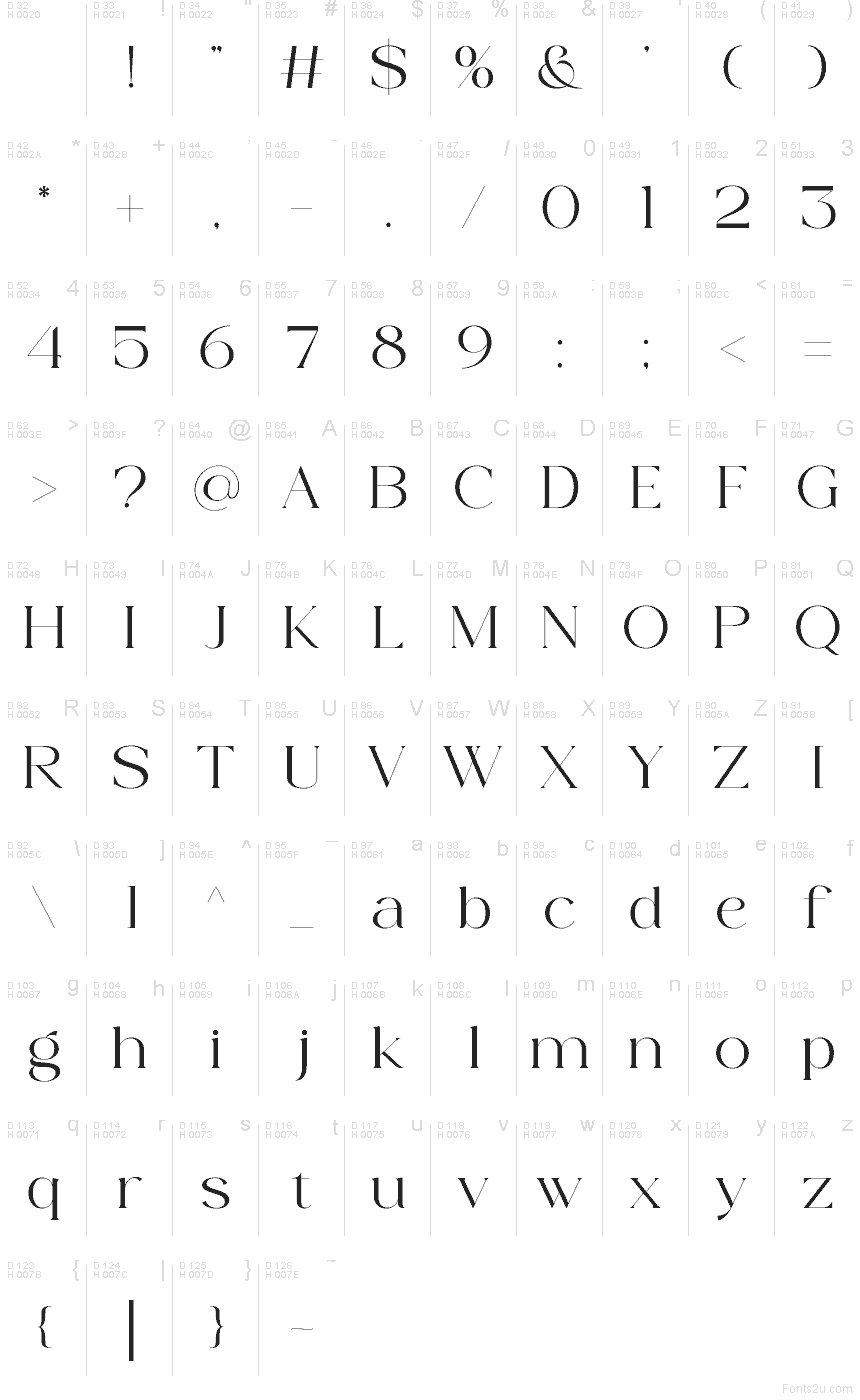
Lorestta
Lorestta font by ToniStudio is a free elegant serif typeface with a distinctly couture attitude. Its long, refined strokes and whisper-thin joins give each letter a brushed-ink delicacy, while the sharp, poised curves keep it feeling modern instead of fussy. There’s a subtle rhythm to the spacing that lets words breathe, so even a single word set large feels like a logo.
Using Lorestta, headlines and names instantly take on a runway-ready presence, making this free font a natural fit for fashion branding, beauty packaging, editorial covers, wedding stationery, posters, and social media graphics. It shines at larger sizes where the slender details can really glow. For a polished system, pair Lorestta with a clean geometric sans for body text and let this serif handle the drama in titles and key phrases.